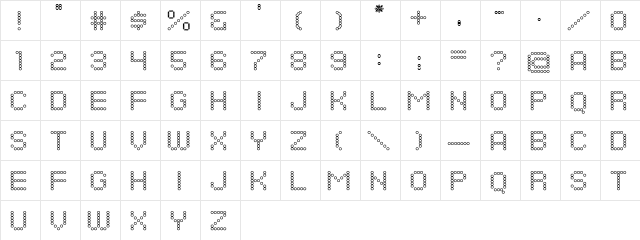
Dots All For Now Open JL Regular
| Foundry | Jeff's Fonts & Dingbats |
| Designer | Jeffrey N. Levine |
Design Context for Dots All For Now Open JL Typeface
Dots All For Now Open JL is rooted in pixel-grid construction, making it a natural fit for game UI, retro computing aesthetics, and digital nostalgia projects.
A natural choice for retro game titles, chiptune music branding, 8-bit UI, and digital nostalgia projects.
Pro Tip: Pair Dots All For Now Open JL with flat colour palettes and simple geometric UI elements to reinforce its digital aesthetic.